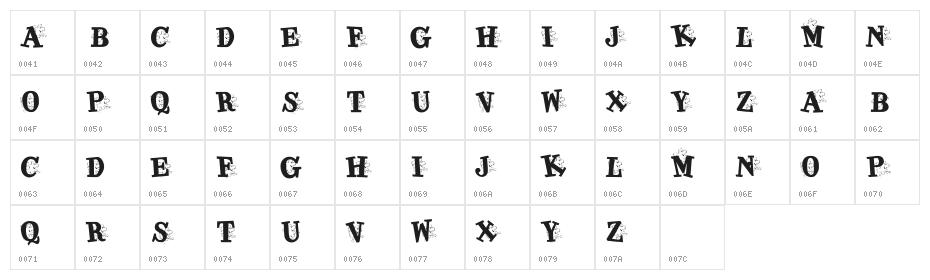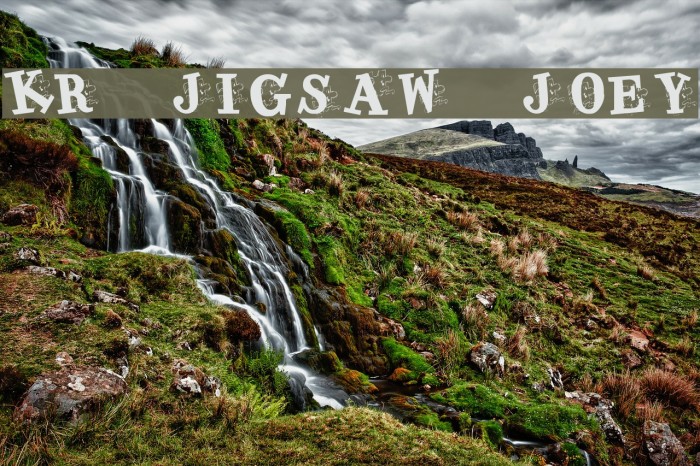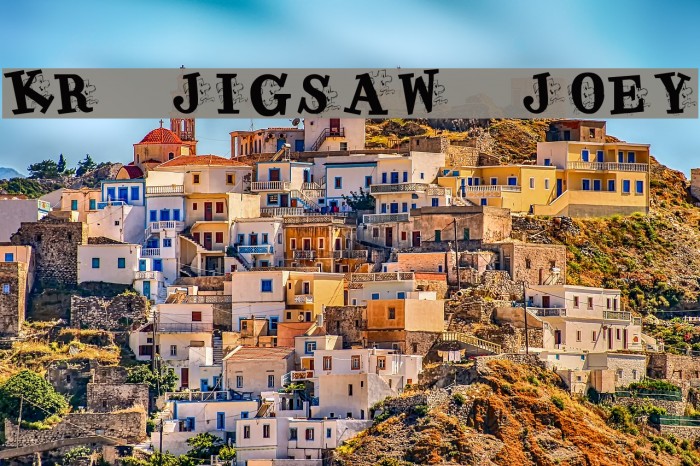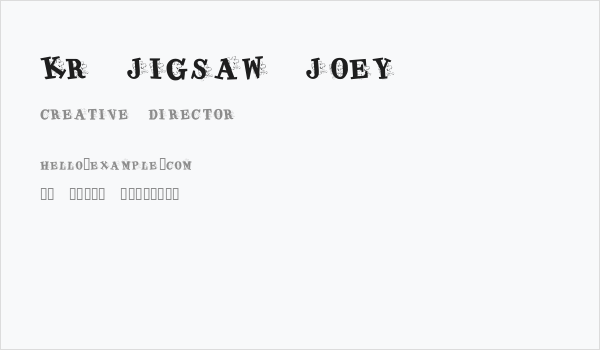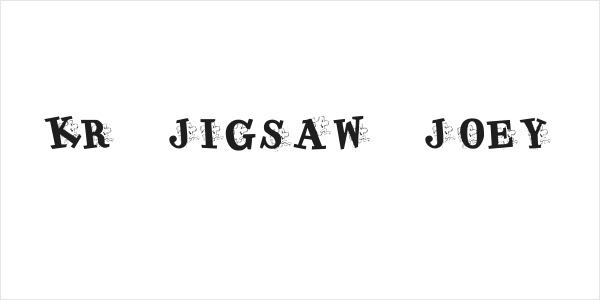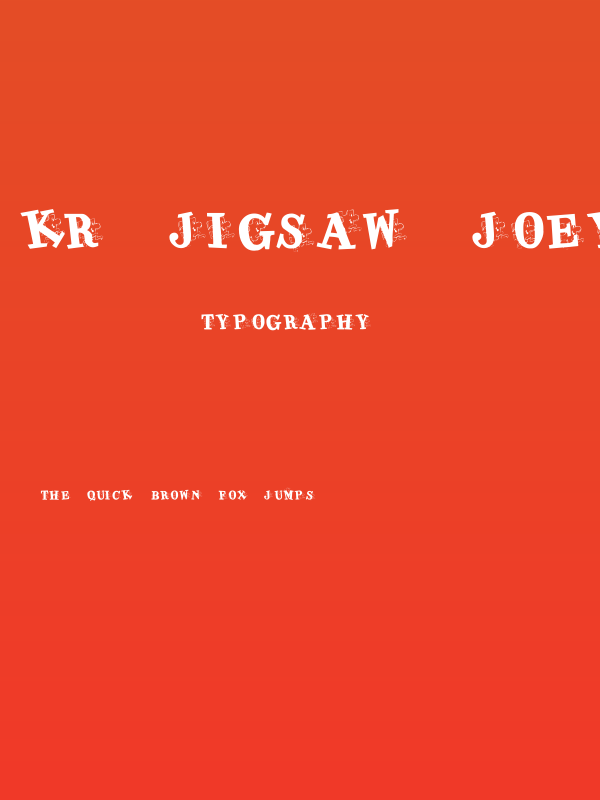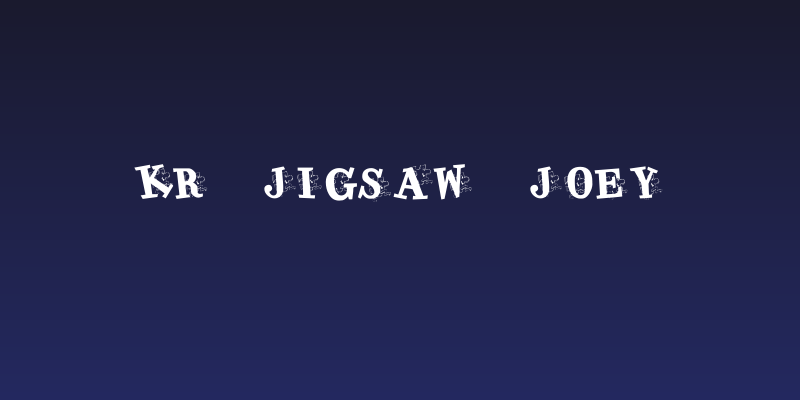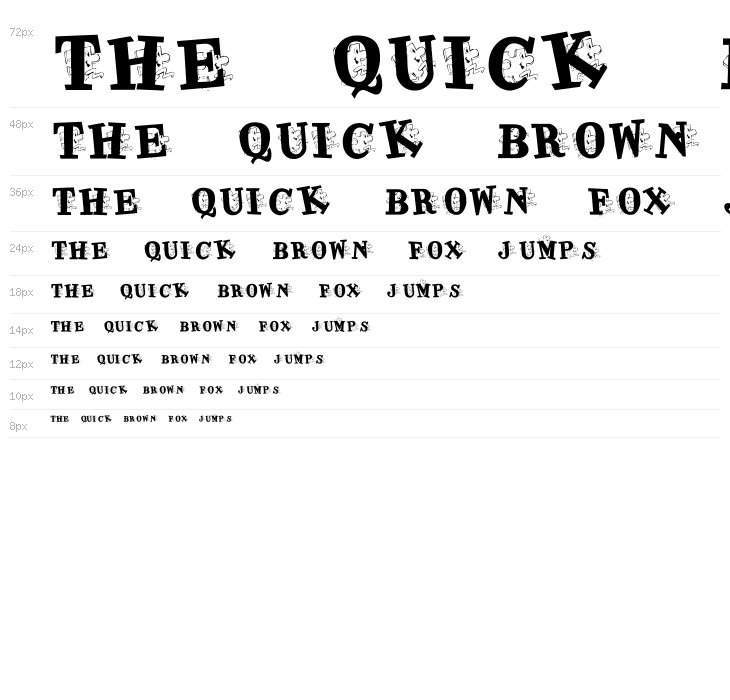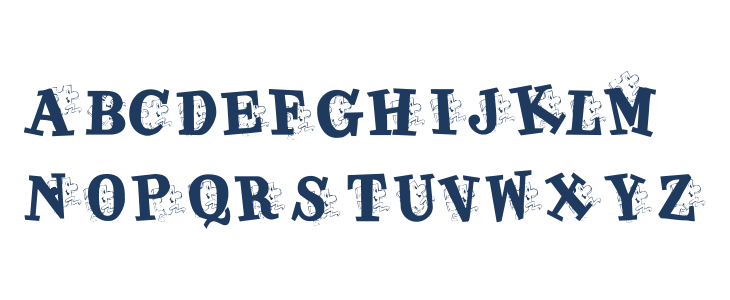
KR Jigsaw Joey Font
KR Jigsaw Joey Description
This font features a playful and whimsical design, incorporating puzzle piece elements into each character. The bold, uppercase letters are distinct and eye-catching, making them suitable for creative and fun projects. The unique integration of jigsaw puzzle motifs adds a layer of complexity and intrigue, making it ideal for designs that aim to capture attention and convey a sense of playfulness. The font maintains a consistent weight and width across all characters, ensuring readability while still offering a decorative flair. Its distinctive style makes it perfect for projects that require a touch of creativity and uniqueness.